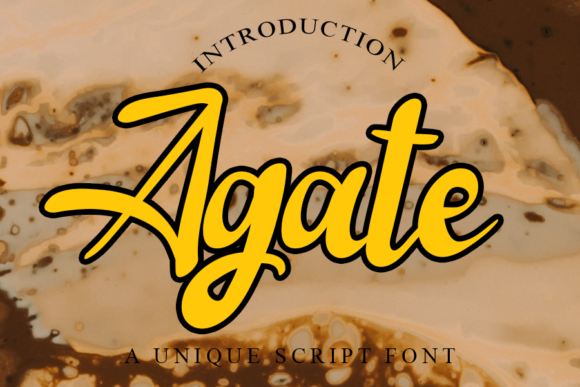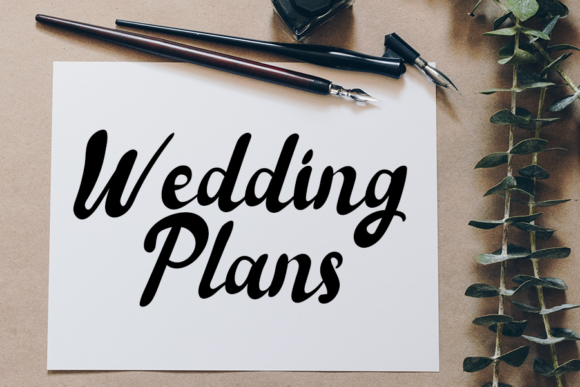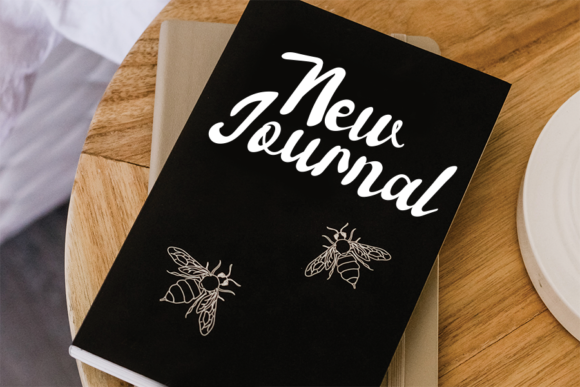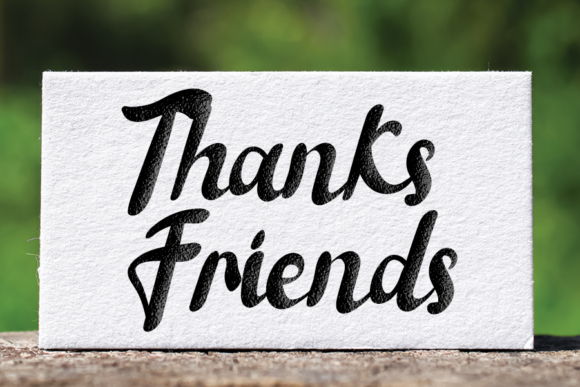
Agate Font
About Agate Font
Agate is a stunning handwritten font that exudes a subtly retro style. With its bold and elegant design, this font is perfectly suited for a variety of projects, including magazines, books, business cards, watermarks, and more.
The unique and distinctive look of Agate adds a touch of character and personality to your designs. Its handcrafted appearance captures the essence of vintage typography, giving your project a nostalgic and timeless feel. The bold strokes and smooth curves of the letters make a strong visual impact, drawing attention to your text.
Agate’s versatility is one of its standout features. It can be used effectively in both print and digital media, allowing you to create cohesive designs across different platforms. Whether you’re designing a magazine layout, a book cover, or a digital advertisement, Agate will enhance the visual appeal of your project.
The bold nature of Agate makes it highly legible and easy to read, even at smaller sizes. This ensures that your message is communicated clearly and effectively, regardless of the medium or context. The font’s attention to detail and balanced proportions contribute to its readability, making it suitable for body text, headlines, and other textual elements.
The retro-inspired style of Agate adds a sense of sophistication and elegance to your designs. Its bold and confident appearance makes a statement, while its subtle retro touches create a sense of nostalgia and charm. This combination of boldness and elegance makes Agate an excellent choice for projects that require a distinctive and memorable look.
Whether you’re designing a magazine spread, a business card, or a watermark for your artwork, Agate will elevate your project with its unique and visually captivating style. Its versatility, readability, and retro charm make it a versatile and powerful tool for designers.
In summary, Agate is a gorgeous handwritten font with a subtly retro style. Its bold and elegant design is suitable for a wide range of projects, including magazines, books, business cards, watermarks, and more. With its distinctive look and timeless appeal, Agate will make your designs stand out and leave a lasting impression.